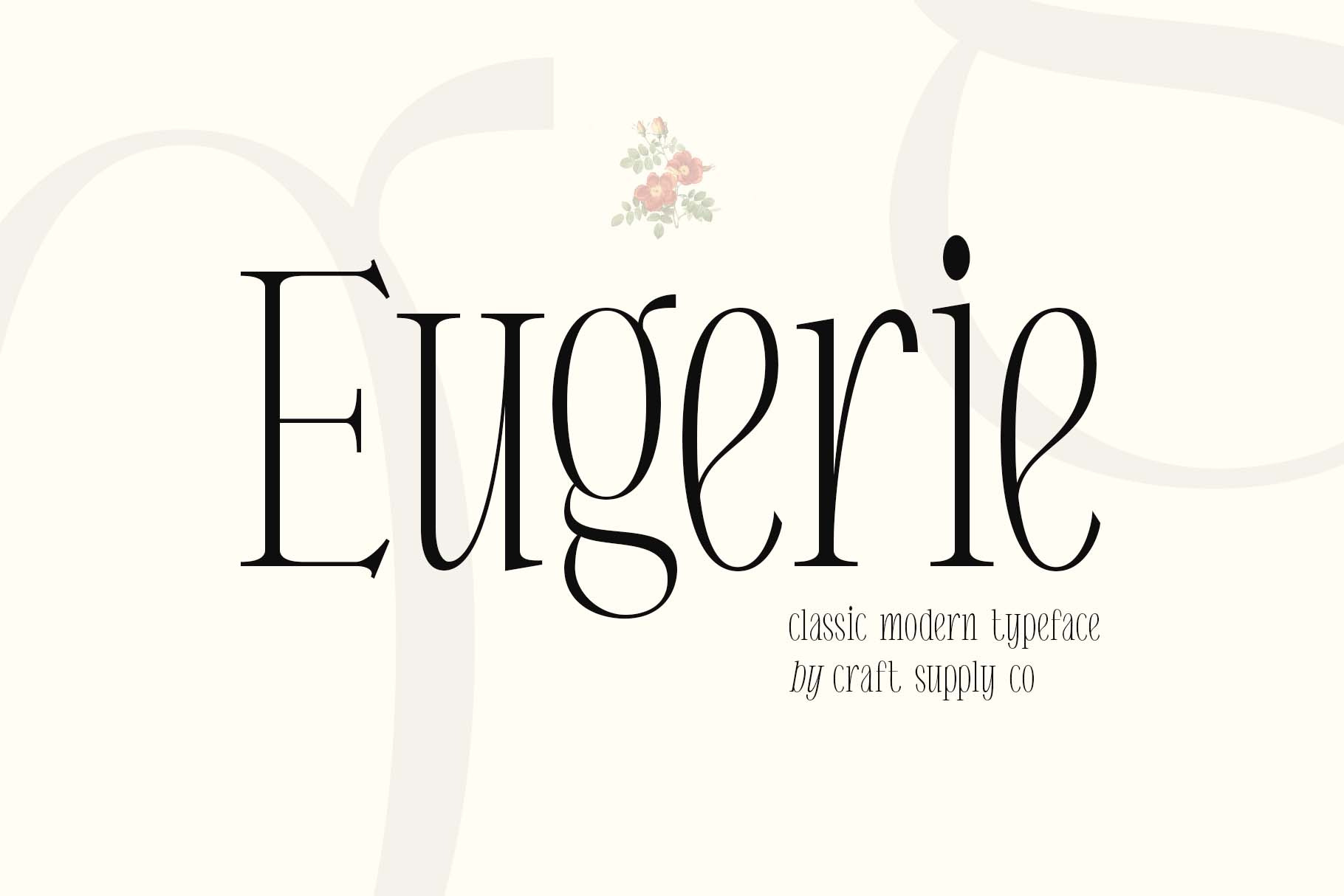
Eugerie - Classic Modern Typeface
Introducing Eugerie - Classic Modern Typeface.
Eugerie - Classic Modern Typeface is a stylish typeface combines classic and modern style. It can be used to create almost all types of design projects like print materials. Just use your imagination and your project will become more alive and look great than ever with Eugerie - Classic Modern Typeface.
You want to make a greeting card or a package design, or even a brand identity, craft design, any DIY project, book title, wedding font, pop vintage design, retro design or any purpose to make your art / design project look pretty and trendy? Feel free to play with this fonts!